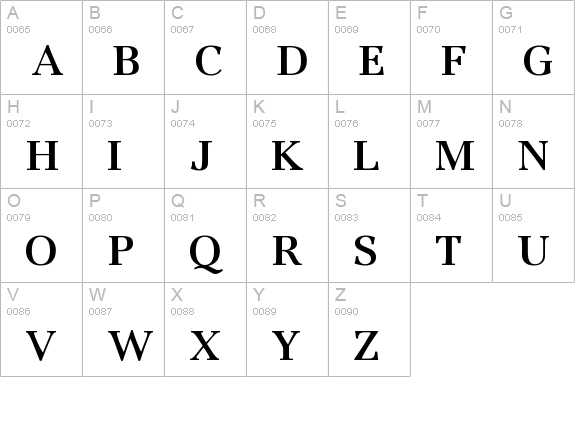
Jamille Bold Font Details
Jamille Bold is a strong, high-contrast variant in the Jamille typeface family \xE2\x80\x94 well suited to headlines, attention-grabbing titles, and strong calls-to-action.
Introducing Jamille Bold font, a captivating and versatile typeface designed to make a bold statement. With its sleek lines and strong curves, this font exudes confidence and demands attention. Whether you're creating a striking logo, designing eye-catching headlines, or crafting impactful titles, Jamille Bold is the perfect choice to make your message stand out. This font combines elegance with a modern edge, making it suitable for a wide range of design projects. From fashion magazines and luxury branding to sleek websites and innovative advertisements, Jamille Bold will elevate your creations to new heights. What sets Jamille Bold apart is not only its stunning aesthetic, but also its accessibility. We believe that great design should be available to all, which is why we are thrilled to offer the Jamille Bold font completely free of charge. That's right, you can now download this exceptional typeface for absolutely no cost at FontsMarket.com. Whether you're a professional designer or a creative enthusiast, Jamille Bold is the perfect addition to your font library. Its versatility and striking presence will inspire you to push the boundaries of your designs and create truly memorable visuals. So why wait? Download Jamille Bold today and unlock a world of creative possibilities. Let this font be the bold statement that sets your designs apart from the crowd. Get ready to captivate your audience and make a lasting impression with Jamille Bold, the freely available font at FontsMarket.com.